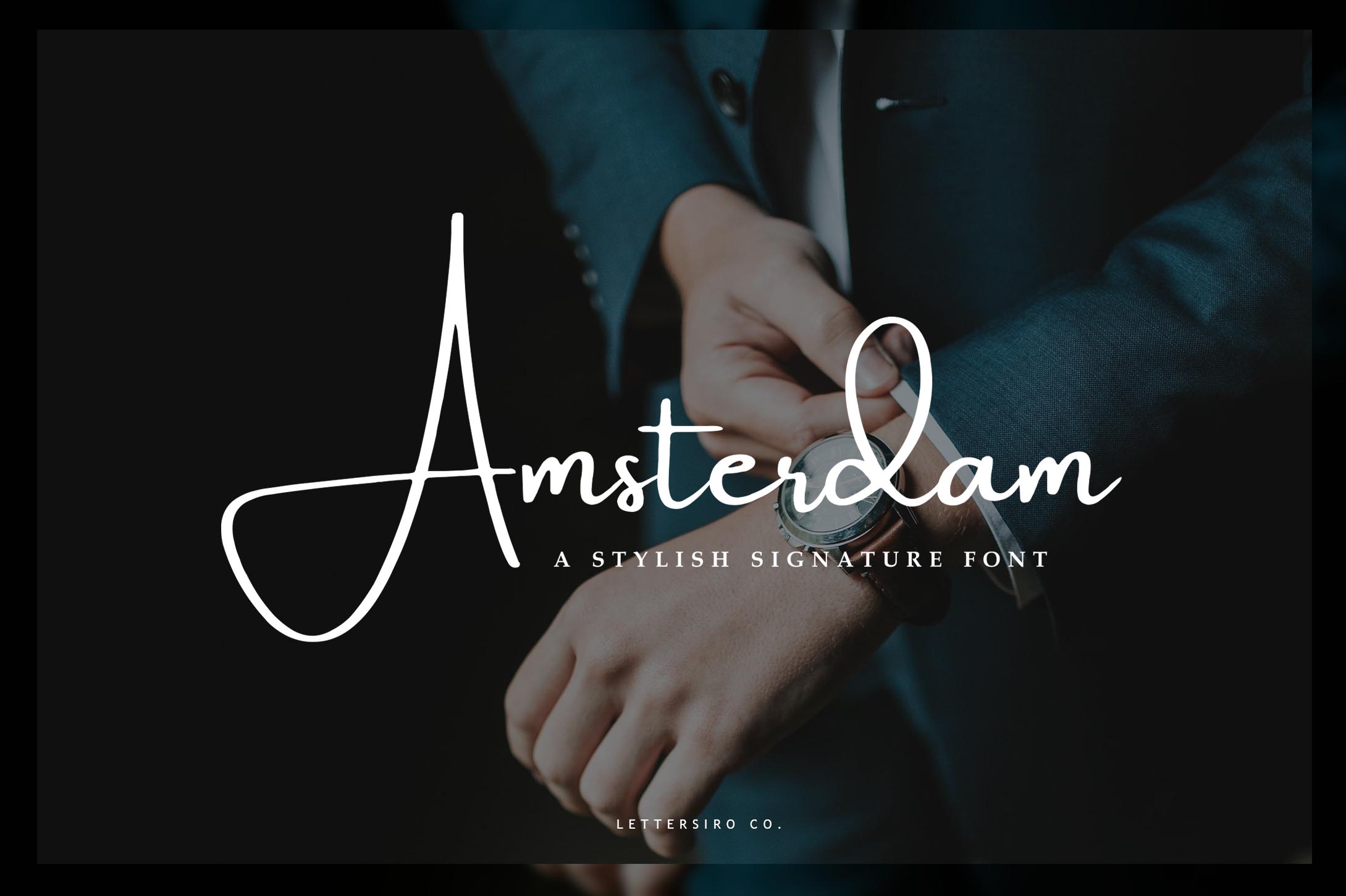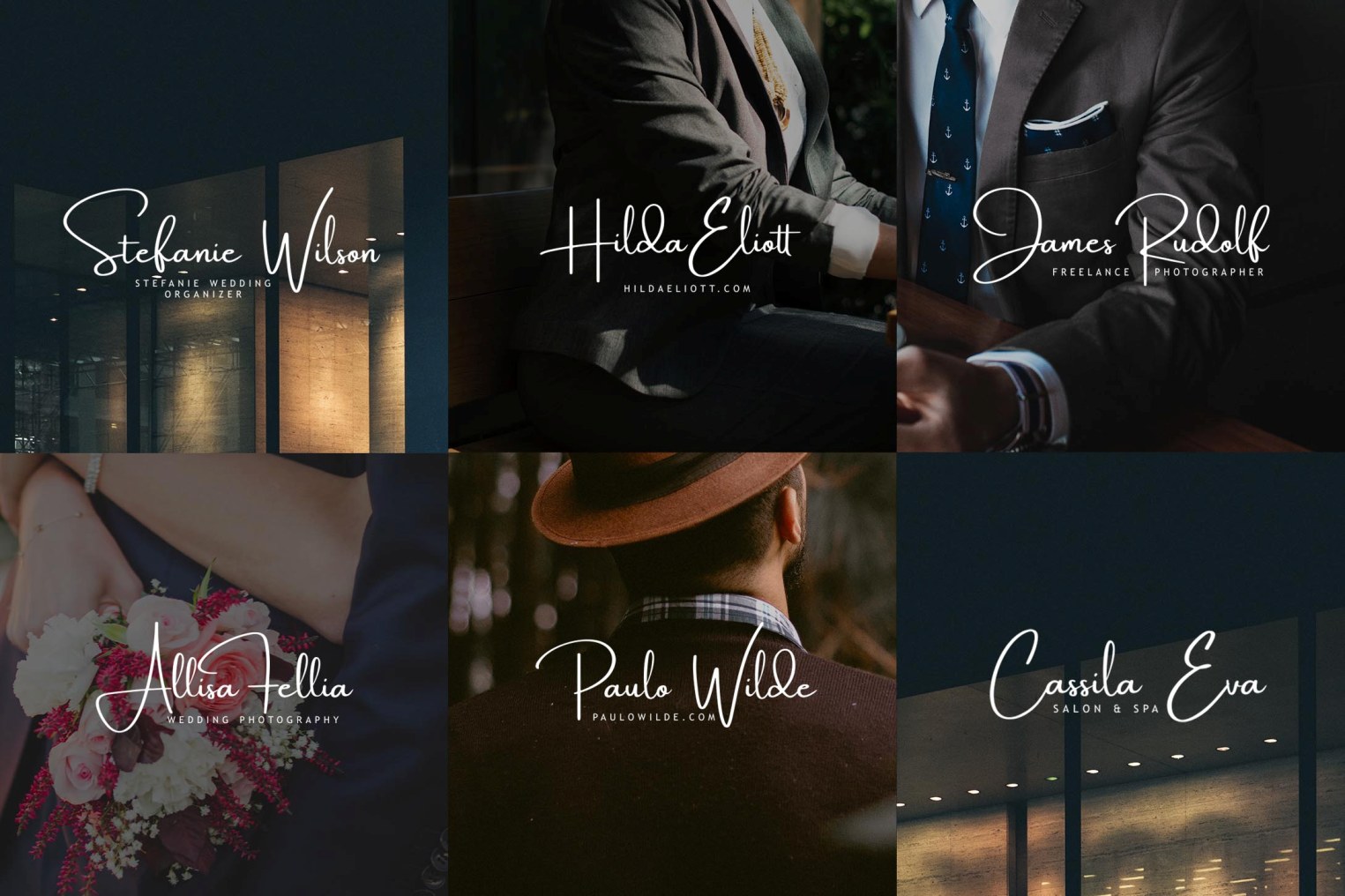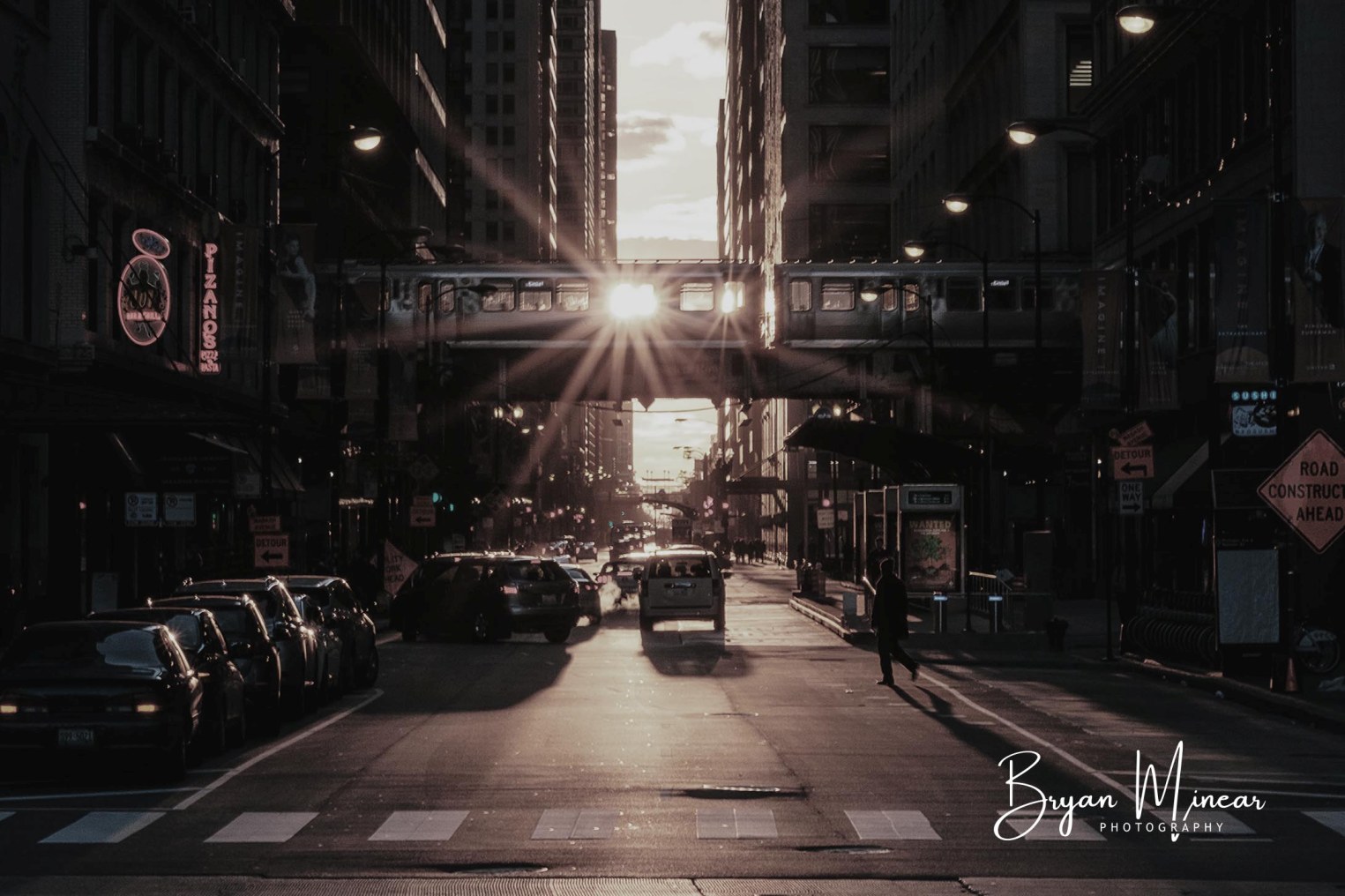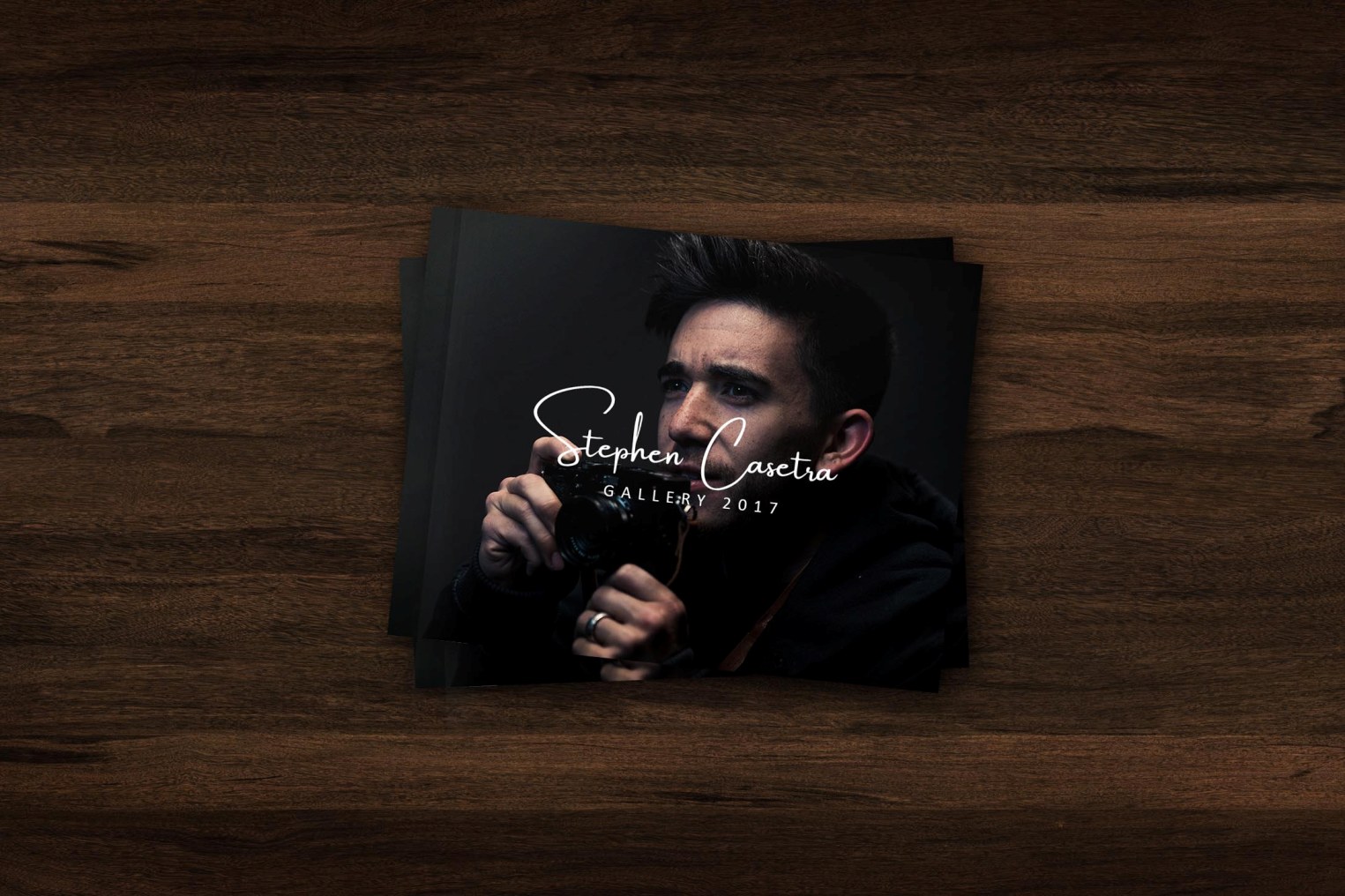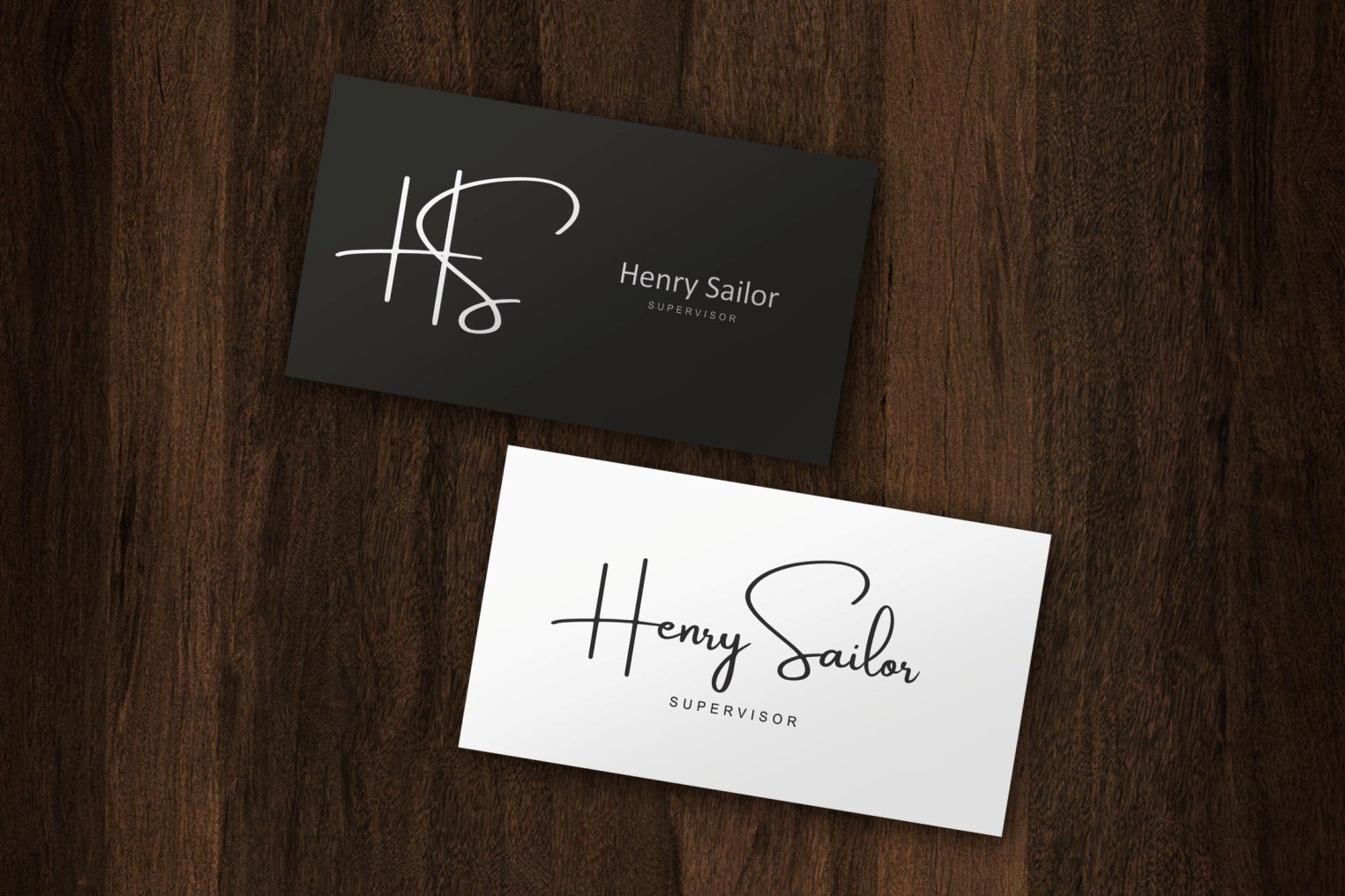
Amsterdam Font
About Amsterdam Font
Amsterdam is a stylish signature font that is inspired by modern photography.
It’s the ultimate font that can be used to create a stunning watermark for your photos. It also works great as a business signature or on other branding materials.